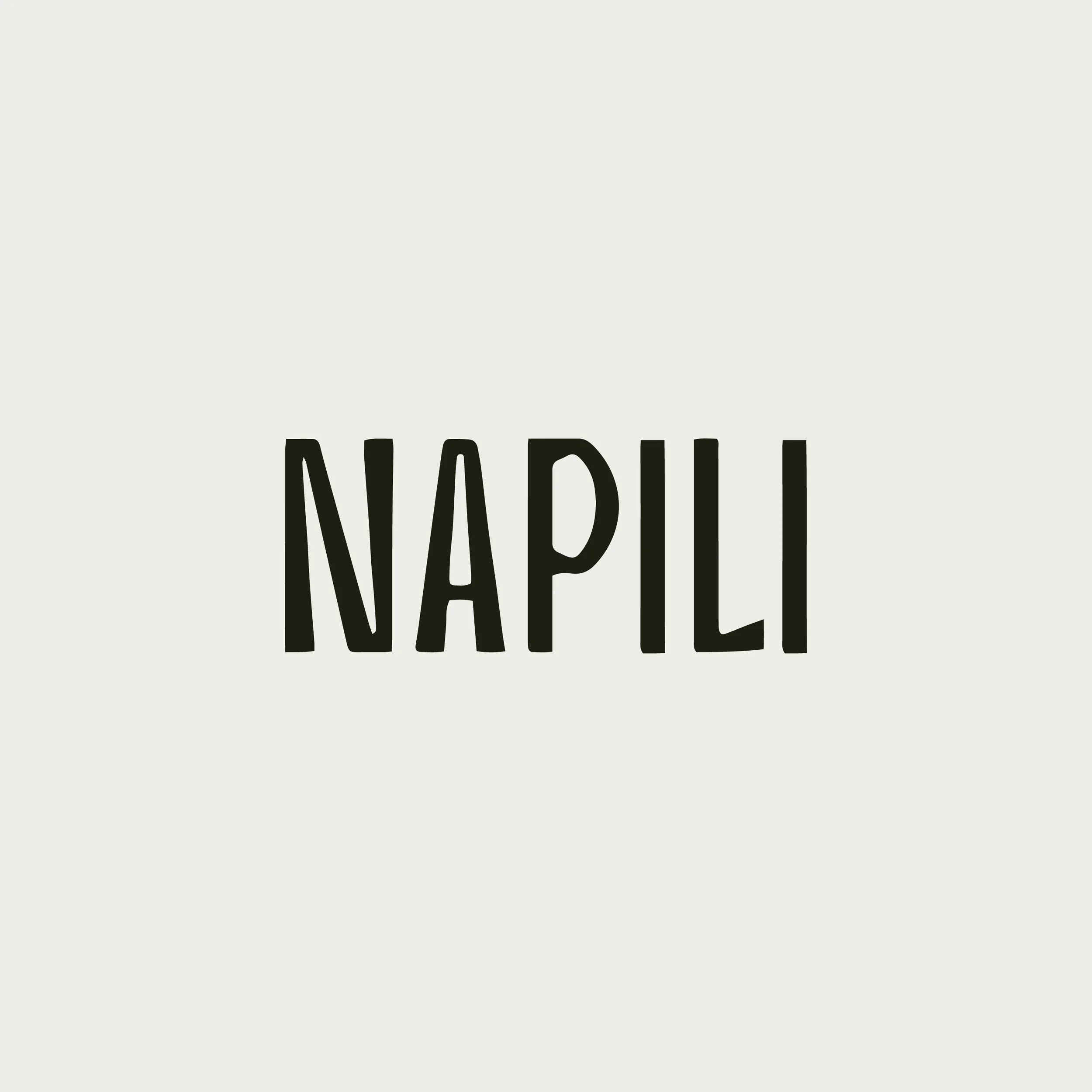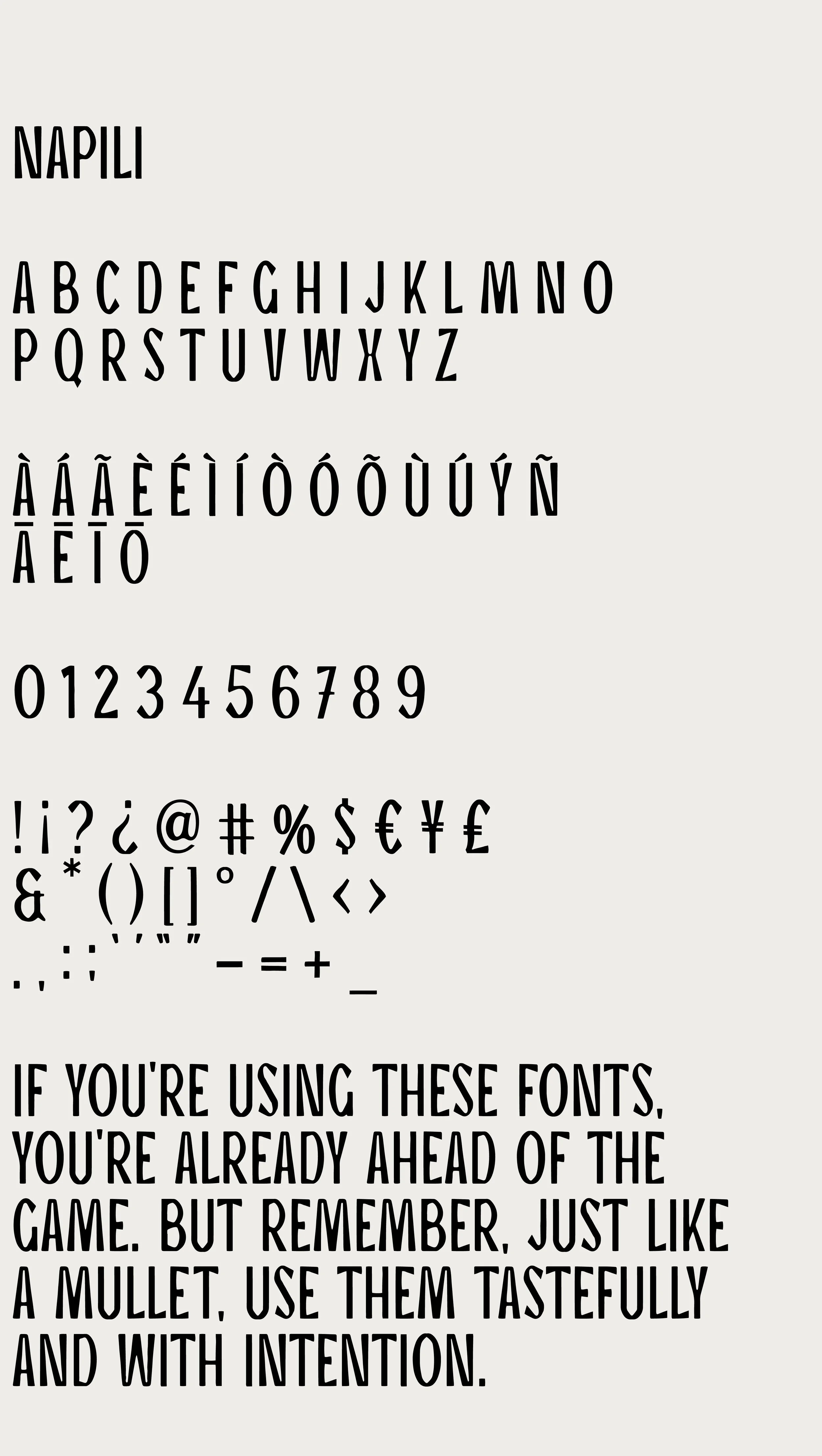
Napili
Say hi to Napili. These letters bring a breath of tropical air into this cold world while never losing sight of a refined balance.
Napili: Character set shown below.
Uppercase letters and digits
Full punctuation
Support for over 50 languages.